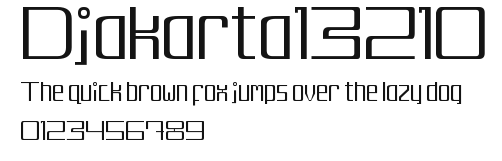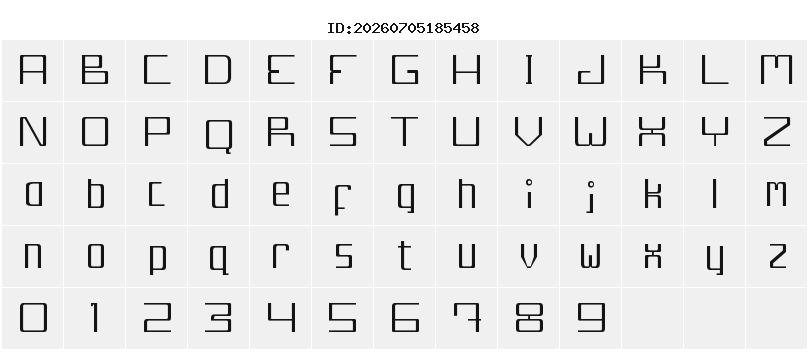
Djakarta13210 Preview
• Font Name: Djakarta13210
• Full Font Name: Djakarta13210
• Designer: High-Logic - Erwin Denissen
About Djakarta13210.ttf
Djakarta13210.ttf is a modern, elegant sans-serif font designed for ultimate readability and visual harmony. Perfect for branding, headlines, web design, and print materials.